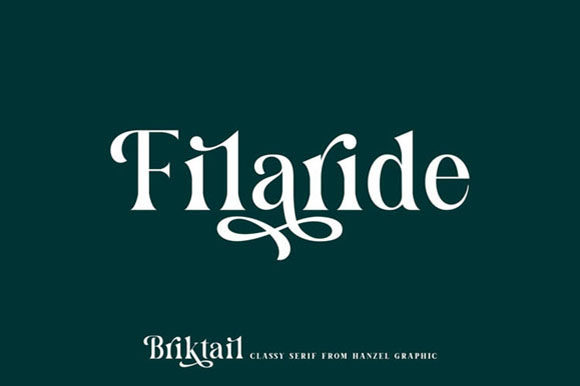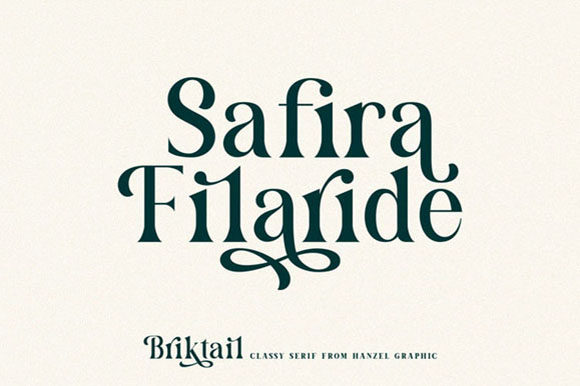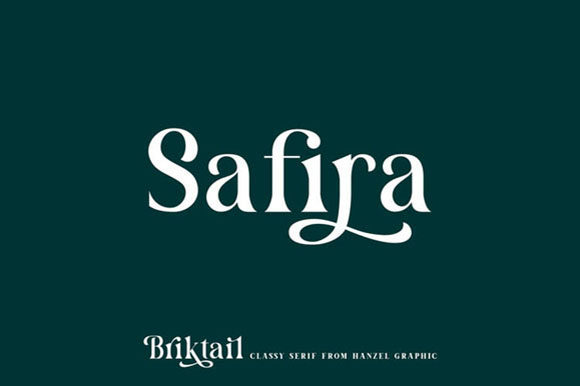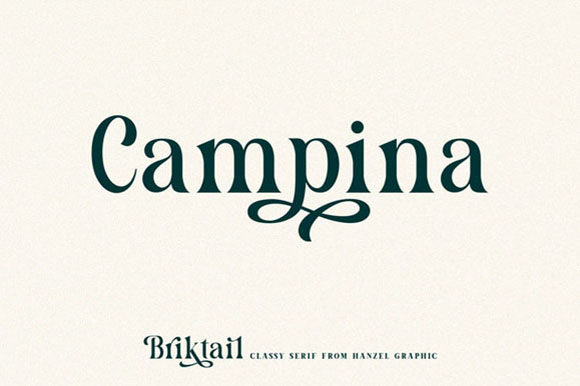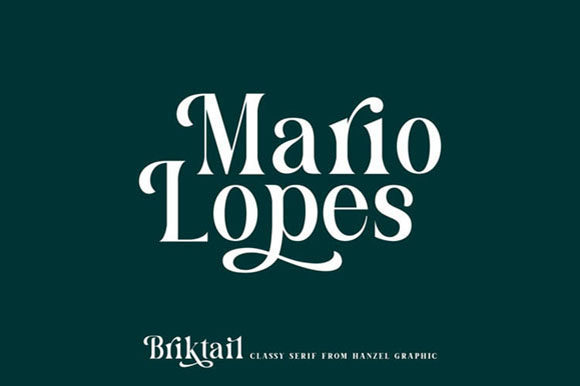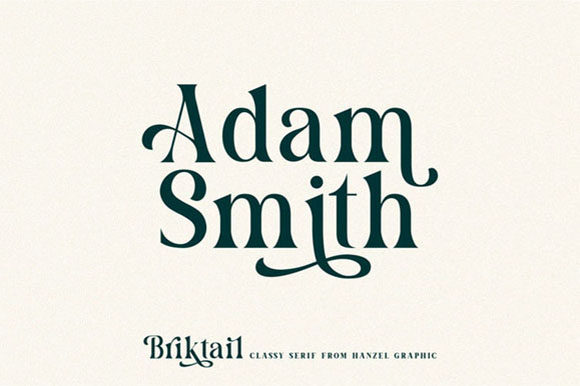
Briktail Font: A Timeless Serif Font for Bold Statements
In the world of typography, fonts play a crucial role in conveying messages, evoking emotions, and creating lasting impressions. For designers and crafters, finding the perfect font can be a daunting task, especially when looking for something that exudes boldness, class, and fun. This is where Briktail Font comes in – a stunning serif font that effortlessly transcends time, making it a versatile must-have for any creative project.
The Briktail Feels: Bold, Classy, and Fun
Briktail Font is a masterclass in typographic design, boasting a unique blend of boldness, class, and playfulness. Its serif design adds a touch of sophistication, while its bold lines and curves inject a sense of confidence and energy. Whether you’re working on a branding project, crafting a logo, or designing a social media graphic, Briktail Font is the perfect choice for making a statement.
A Versatile Font for Timeless Designs
One of the standout features of Briktail Font is its versatility. This gorgeous serif font can be used across a wide range of design applications, from elegant and refined to bold and edgy. Its timeless design ensures that your work will remain relevant and stylish for years to come, regardless of changing trends and styles.
Key Features of Briktail Font
• Serif Design: Briktail Font features a classic serif design, perfect for adding a touch of sophistication to your work.
• Bold and Confident: With its bold lines and curves, Briktail Font exudes confidence and energy, making it perfect for headlines, titles, and statements.
• Playful and Fun: Despite its boldness, Briktail Font has a playful side, making it ideal for designs that require a touch of whimsy and personality.
• Versatile and Timeless: Briktail Font’s timeless design ensures that it will remain relevant and stylish for years to come, regardless of changing trends and styles.
Use Cases for Briktail Font
Briktail Font is perfect for a wide range of design applications, including:
• Branding and Logos: Use Briktail Font to create a bold and memorable brand identity that stands out from the crowd.
• Social Media Graphics: Add a touch of class and sophistication to your social media graphics with Briktail Font.
• Headlines and Titles: Use Briktail Font to create bold and attention-grabbing headlines and titles that demand attention.
• Packaging and Labels: Add a touch of elegance and sophistication to your packaging and labels with Briktail Font.
Why Choose Briktail Font?
With so many fonts available, why choose Briktail Font? Here are just a few reasons:
• Unique Design: Briktail Font boasts a unique and distinctive design that sets it apart from other serif fonts.
• High-Quality: Briktail Font is a high-quality font designed with precision and attention to detail.
• Easy to Use: Briktail Font is easy to use and can be easily integrated into your design workflow.
• Versatile: Briktail Font is incredibly versatile and can be used across a wide range of design applications.
In conclusion, Briktail Font is a stunning serif font that is sure to make a statement in any design project. With its bold, classy, and fun design, Briktail Font is perfect for designers and crafters looking to add a touch of sophistication and elegance to their work. Its versatility and timeless design ensure that it will remain a valuable addition to your font collection for years to come.